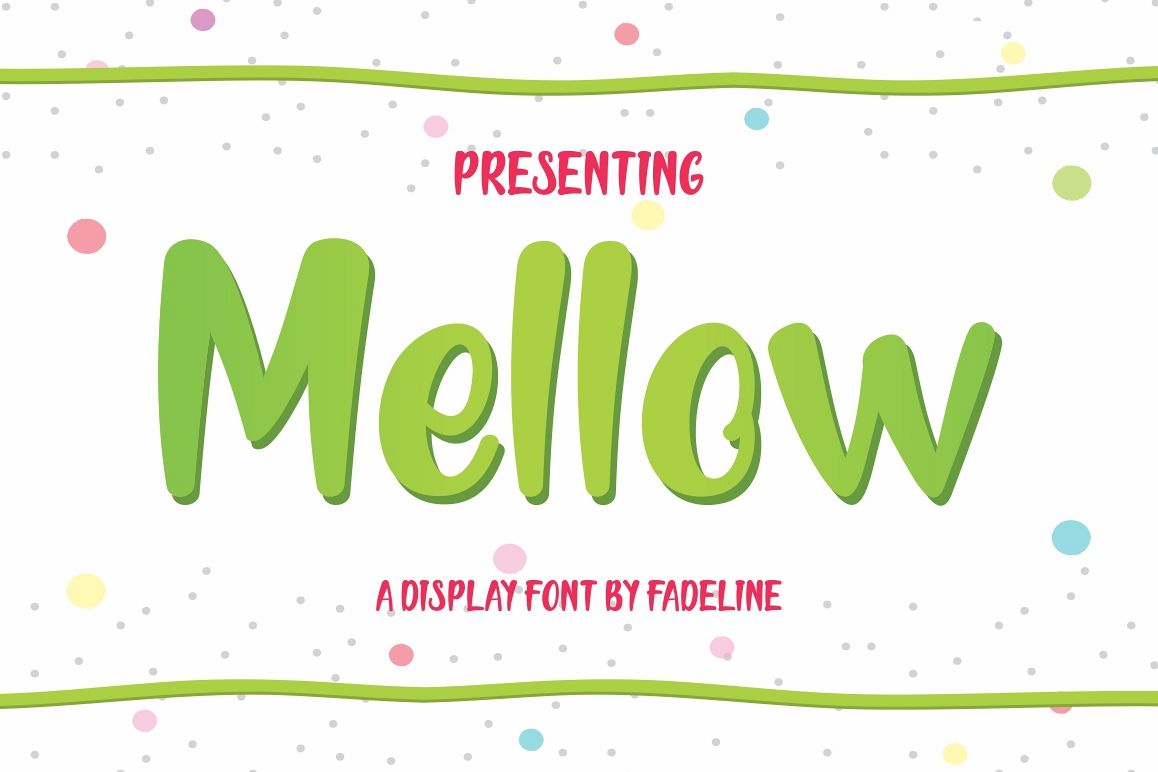
Mellow
Mellow is a fancy comic typeface, cute and beautiful. Although It is also suitable for other purposes such as posters, shopping bags, headline, insignia, badge, t-shirt, logo, branding, cover book, badge, birthday invitation, greeting cards, etc.
Mellow is also suitable for use in the design style as retro, vintage, minimalist, flat, cartoon, modern design, etc.
With the combination and some color, you can easily create a compelling message and look beautiful for your design.